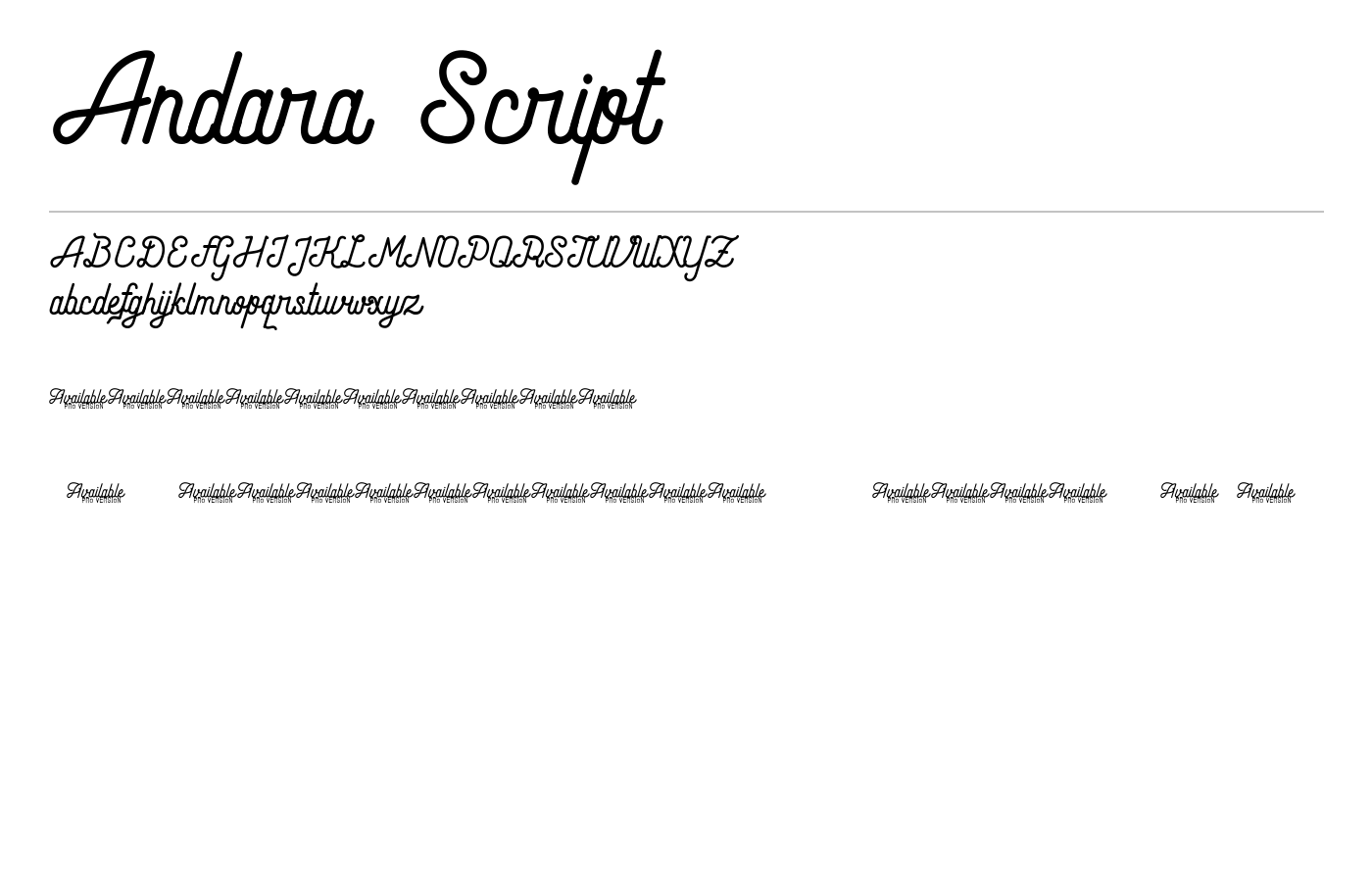
Andara Script is a delicate and elegant script font with a vintage feel, characterized by its smooth, flowing lines and slender letterforms. Its tall x-height and consistent stroke weight give it a refined, legible appearance, making it ideal for stylish logos, invitations, and branding that require a touch of sophistication and charm. This font works beautifully in designs that want to convey grace and a handcrafted, timeless aesthetic.
Andara Script Font
About Andara Script Font
| Font family | Andara Script Font |
| Designer | Aqr.Typeface |